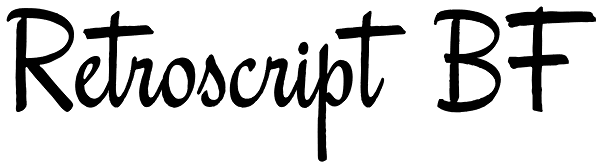
Retroscript BF
Service with a smile. Fifties style. Retroscript BF is sure to please. Inspired by handlettering for a headline on a 1940’s furniture ad, it’s got a cool Forties and Fifties flavor; and gee whiz, the capital letters of this script font even go...